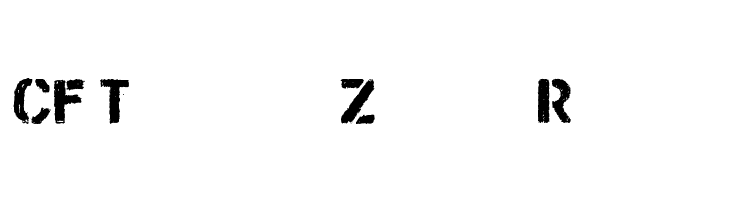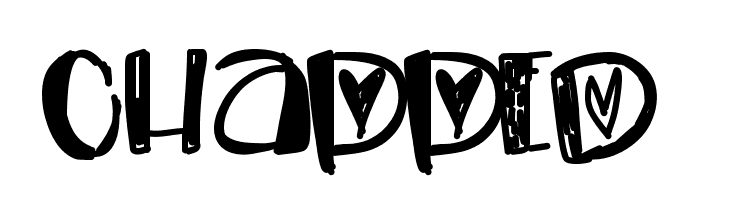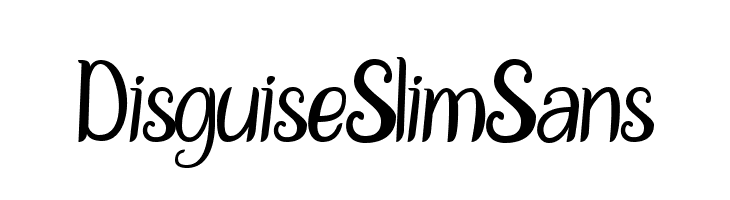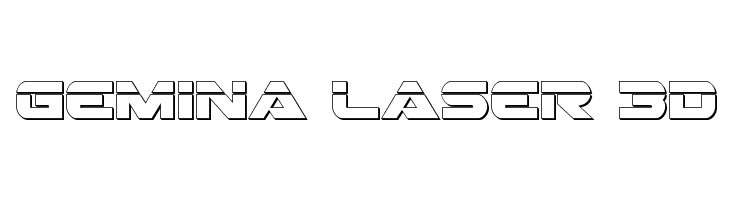
A bold, distressed font with a rugged, grunge aesthetic.
Bold, angular, and modern with a strong, edgy appearance.
A flowing, cursive font with elegant, connected strokes.
A sophisticated script font with elegant, flowing cursive strokes.
A bold, distressed font with a grunge texture, perfect for impactful designs.
A modern, italicized outline font with a sleek and dynamic appearance.
A bold, hand-drawn font with an expressive and organic style.
An ornate Blackletter font with bold, angular strokes and intricate details.